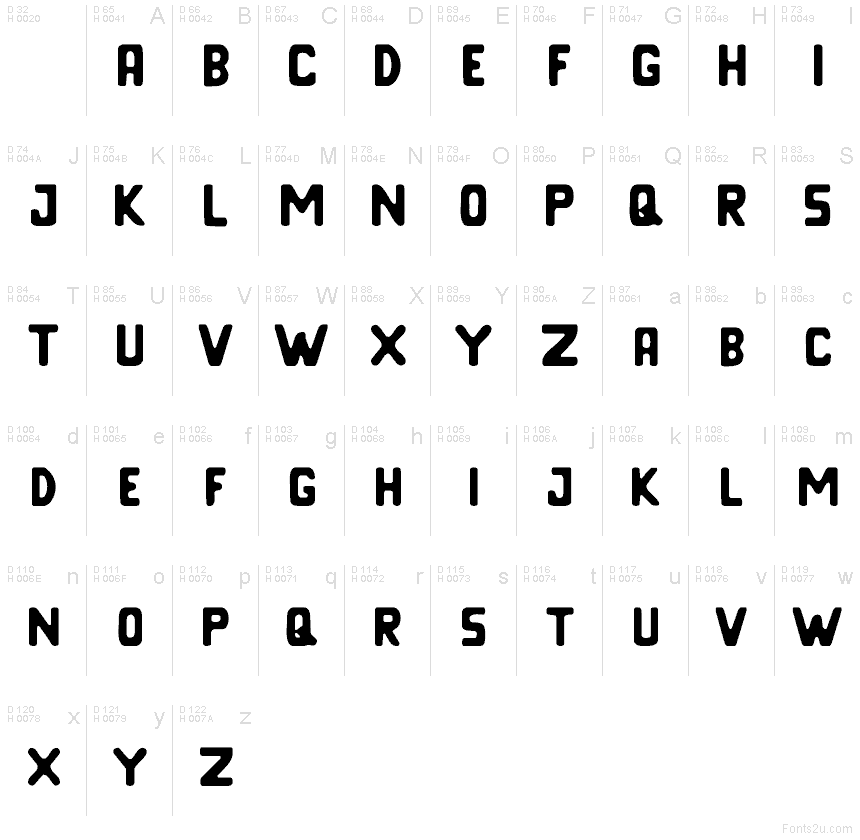
RenoisBlur-Regular Demo
Renois Blur font is a bold display typeface with a rounded and geometric construction. Designed by Craft Supply Co., the free font has the ideal features of modernism and minimalism featuring clean structures in every character. The uniform height of characters also promotes harmony which makes for flawless presentations.